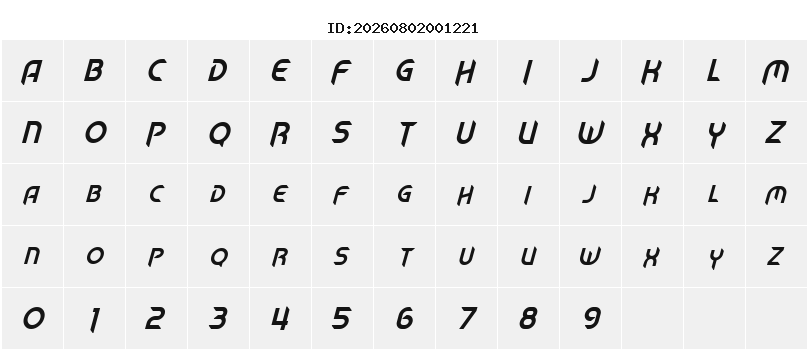
Mech Tech Preview
• Font Name: Mech Tech
• Designer: Neale Davidson
• Manufacturer: Pixel Sagas
About Mech Tech.otf
Mech Tech.otf is a modern, elegant sans-serif font designed for ultimate readability and visual harmony. Perfect for branding, headlines, web design, and print materials.